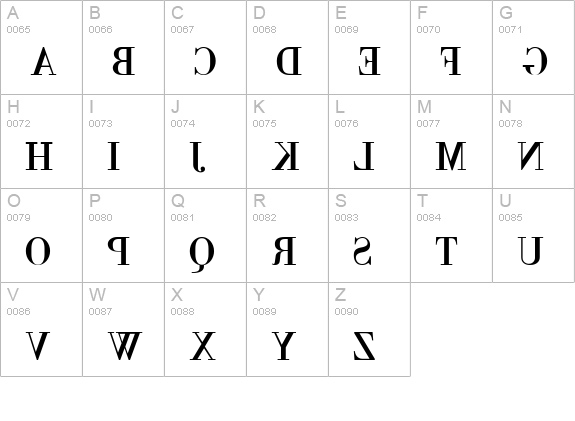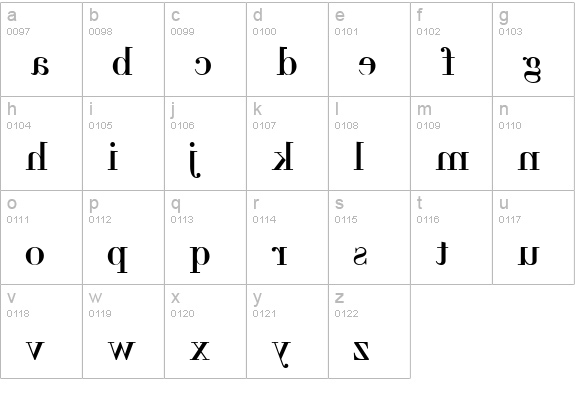
BackBod Font Details
Introducing BackBod, a stunning and versatile font that is sure to elevate your design projects to new heights. With its unique and captivating character, BackBod effortlessly combines elegance with a touch of playfulness, making it perfect for a wide range of applications. This font is meticulously crafted with attention to detail, ensuring each letter is beautifully balanced and visually appealing. The clean lines and subtle curves give BackBod a modern and sophisticated aesthetic, while maintaining a sense of warmth and approachability. One of the most appealing features of BackBod is that it is available for free! Yes, you heard it right. This incredible font can be freely downloaded from FontsMarket.com, allowing you to enhance your designs without breaking the bank. Whether you're a professional graphic designer or a hobbyist seeking to add a touch of creativity to your personal projects, BackBod is the perfect choice. With its wide range of weights and styles, BackBod offers endless versatility. From elegant headlines to eye-catching logos, from stylish invitations to captivating social media posts, this font will effortlessly adapt to any design concept you have in mind. Its legibility and readability ensure that your message will be conveyed with utmost clarity, while its unique charm adds a touch of personality to your creations. BackBod is more than just a font; it's a creative tool that empowers you to bring your ideas to life. So why wait? Download BackBod for free at FontsMarket.com and unlock a world of design possibilities. Experience the power of this exceptional font and watch as your designs come to life with unparalleled beauty and style.